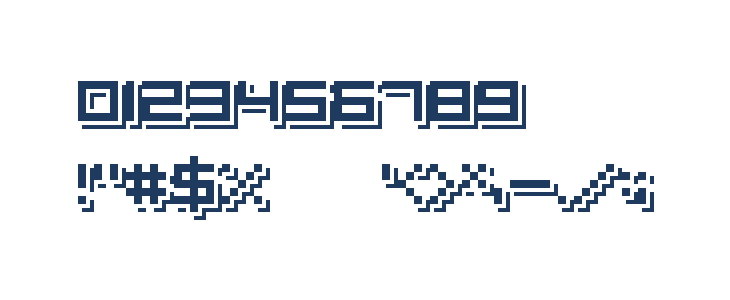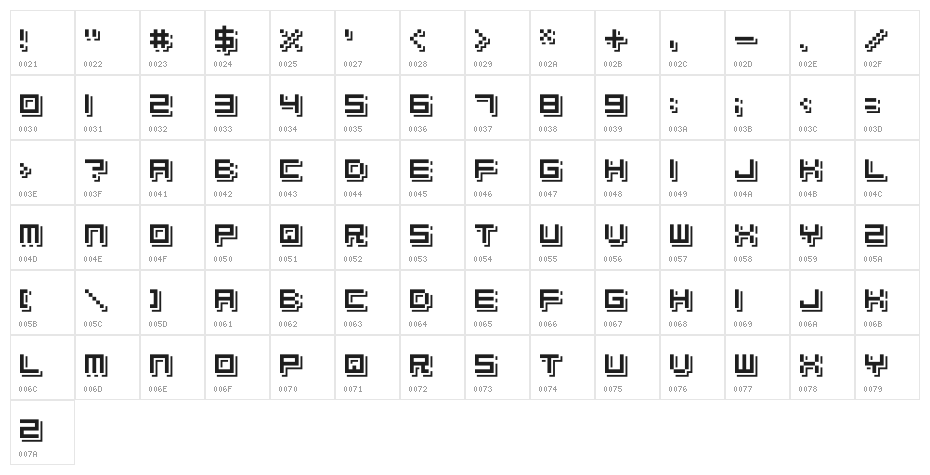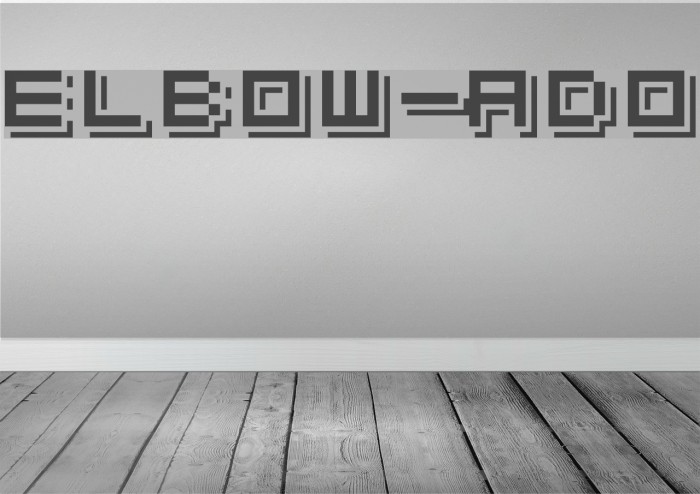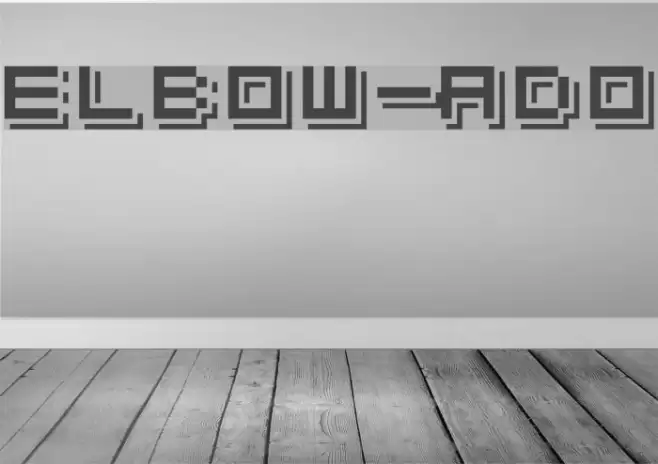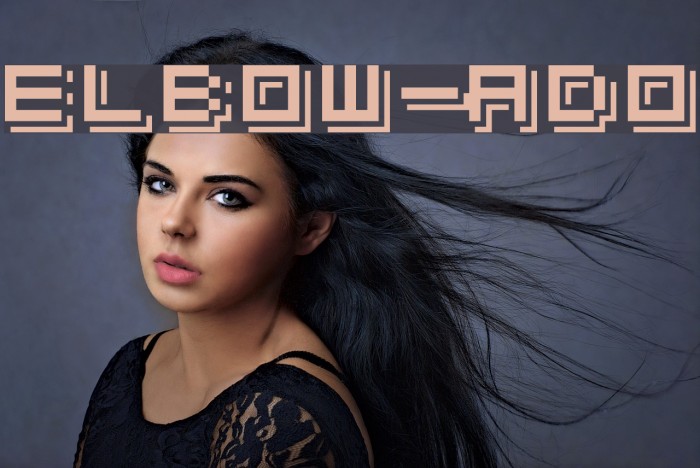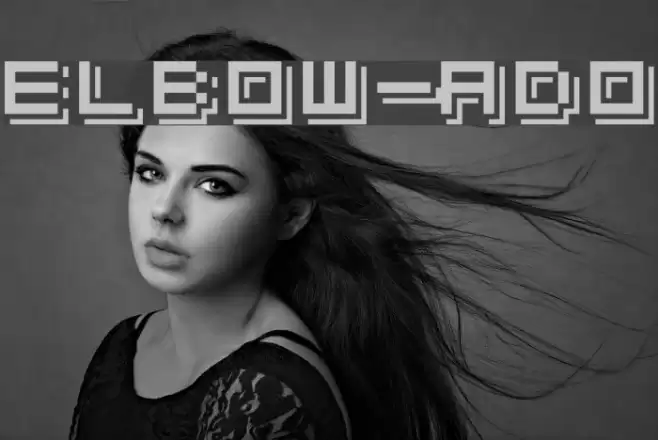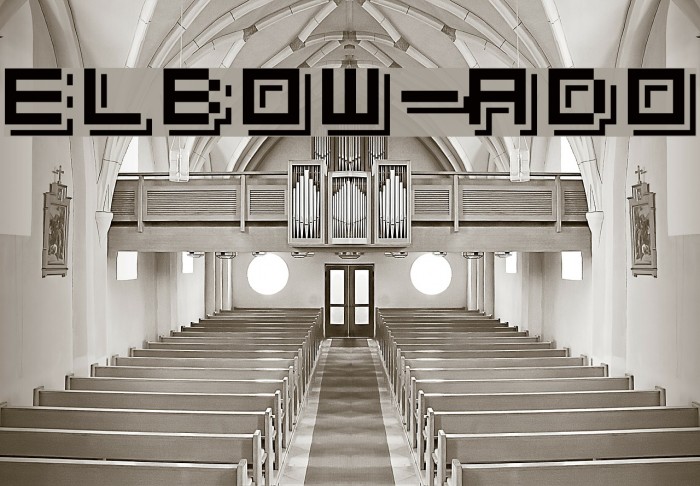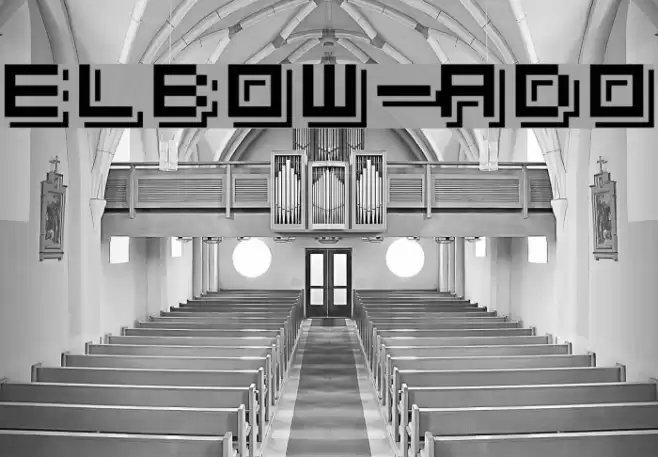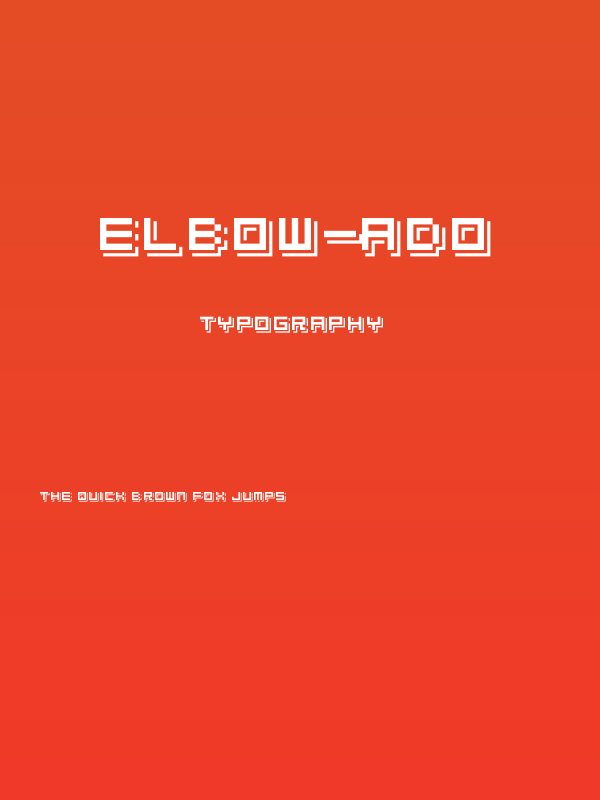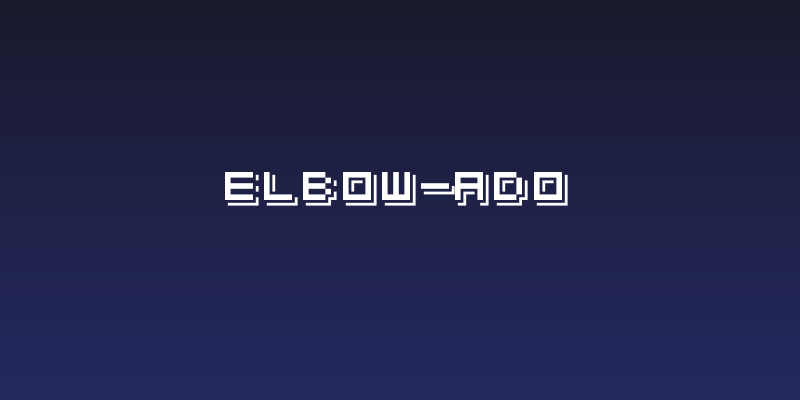
Elbow-ado Font
Elbow-ado Description
This font features a bold, geometric design with a distinct pixelated style reminiscent of retro video games. Each character is constructed with sharp, angular lines and a blocky appearance, giving it a digital, futuristic feel. The uppercase and lowercase letters maintain a consistent height, enhancing the uniformity and readability of the text. Numbers and special characters are designed with the same pixelated aesthetic, ensuring a cohesive look across all glyphs. The font's unique style makes it stand out, offering a nostalgic yet modern vibe.
| Overall Style | Retro, Futuristic |
| Proposed Projects | Ideal for video game design, digital art projects, retro-themed posters, and tech-related branding. |